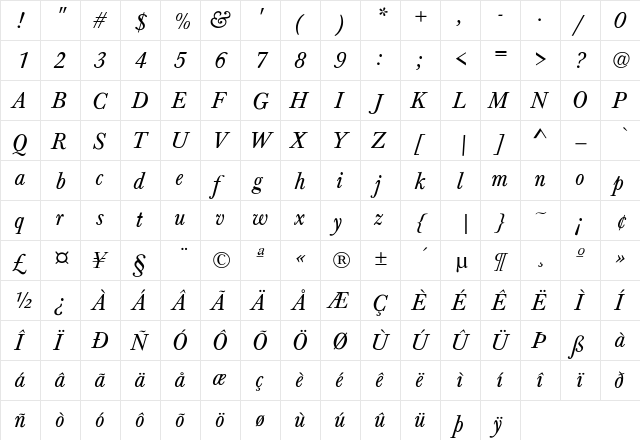
Huntmere-Normal-Italic Regular
Design Context for Huntmere-Normal-Italic Typeface
Huntmere-Normal-Italic offers clean, dependable letterforms without strong stylistic allegiance, making it a practical choice for designers who need flexibility. The dynamic lean of this cut emphasises speed and emphasis in any layout.
Pro Tip: Use Huntmere-Normal-Italic for emphasis, pull quotes, and subheadings where its slanted energy can add rhythm to the layout.